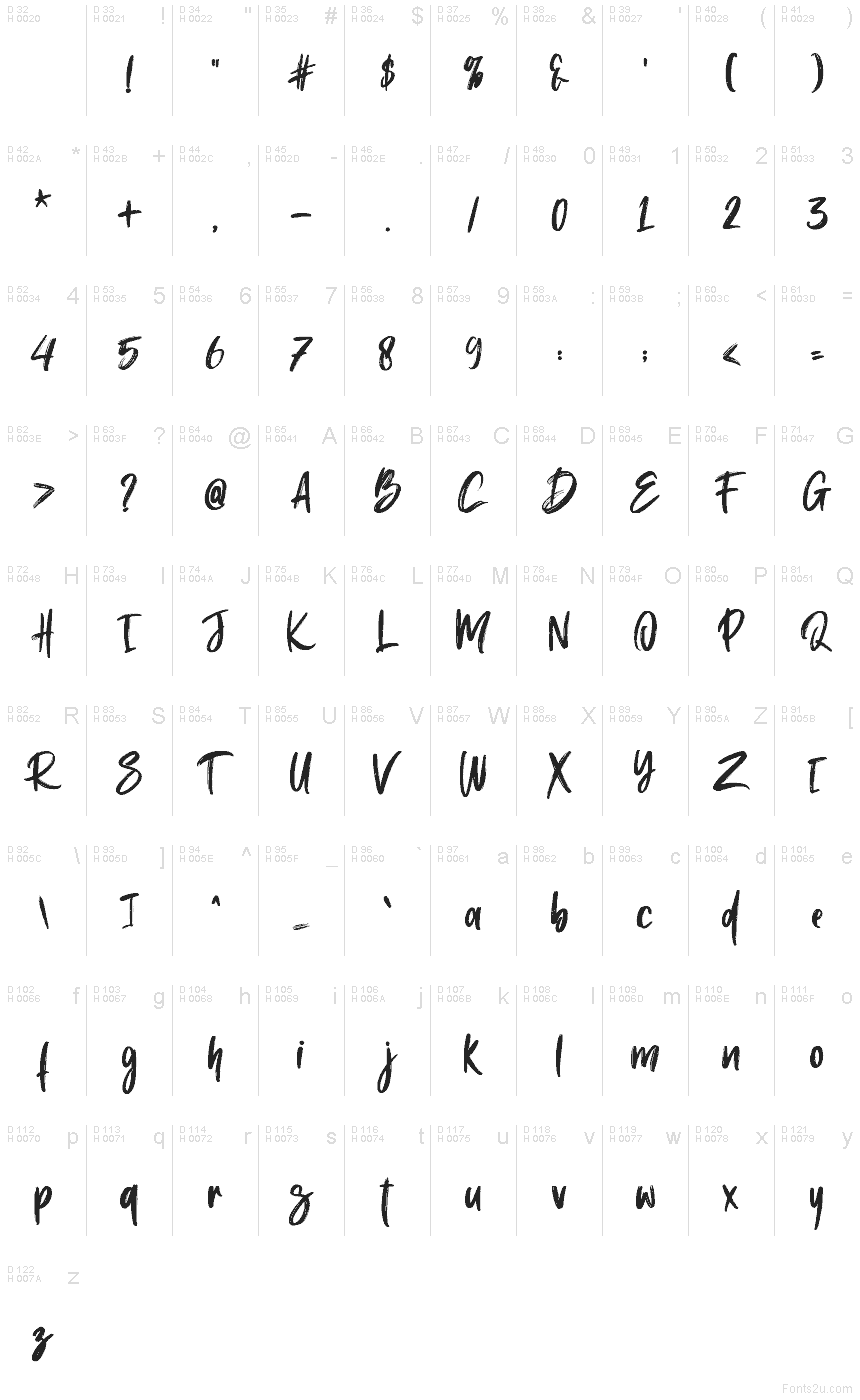
Chollistio font by Letterara is a free brush font with an impressive hand-drawn style. Its casual aesthetic combines expressive appearance and energetic vibe for a lively overall look. The design is complemented by the brush-like texture which also adds warmth to any text it’s used for.